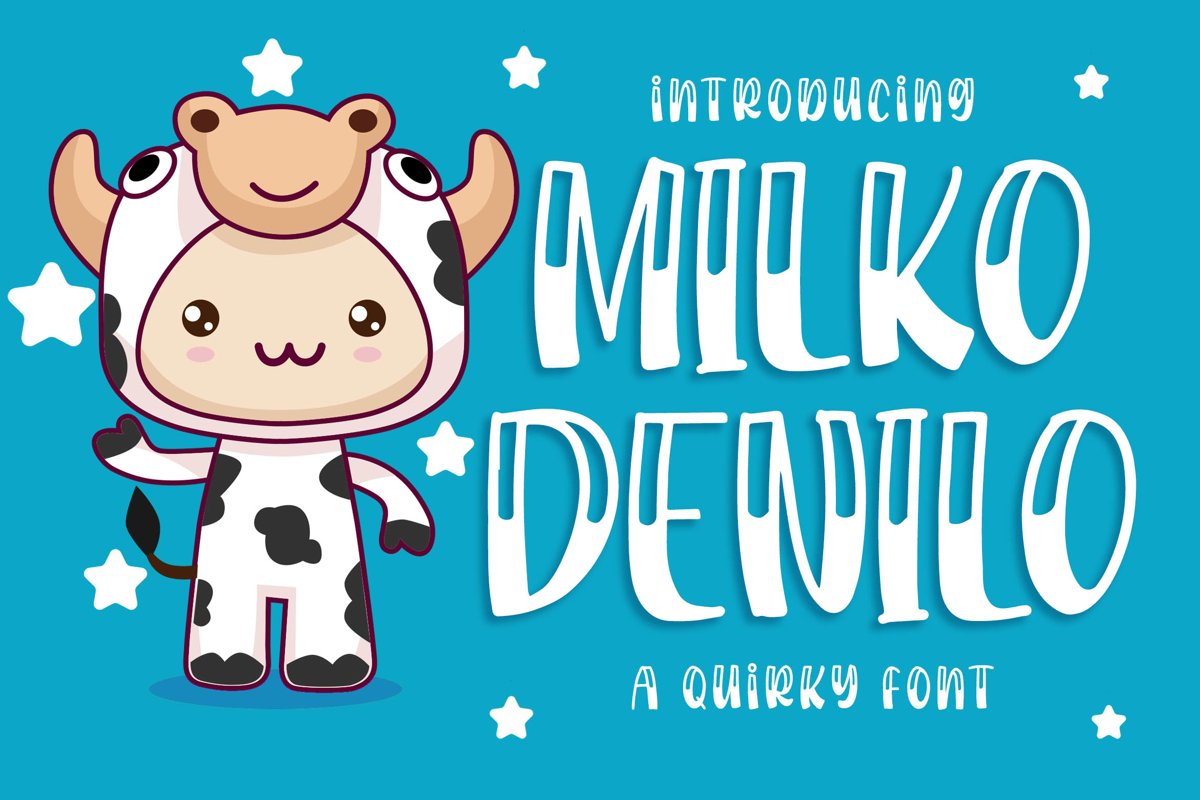
Introducing of our new product the name is Milko Denilo a Quirky Font. Milko Denilo inspired by brush sign calligraphy this font is a fun theme very good for, book cover, poster, t-shirt, quote, logotype, craft and etc